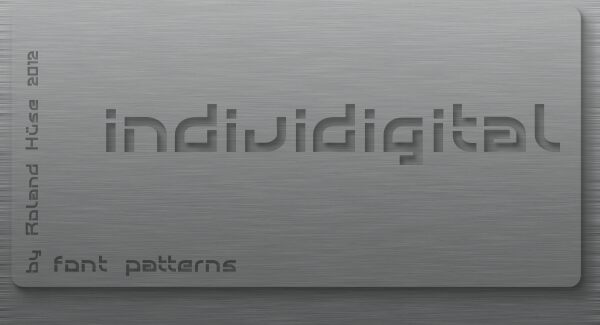
Individigital Shaded is a free futuristic 3D display font with broad geometric lettering and a sharply offset shadow. Its open interiors, squared joins, and sweeping rounded sections create an architectural silhouette that feels part arcade cabinet and part custom signage. The forms are wide and emphatic.
For electronic music artwork and game title screens, the layered construction supplies a convincing retro-digital edge, yet the same substantial shapes also suit streetwear branding and event posters. The black shadow can function like a built-in cut-paper layer, linking the lettering to bold geometric illustration, interface panels, or stacked collage graphics in promotional displays.
Individigital Shaded
RolandHuse